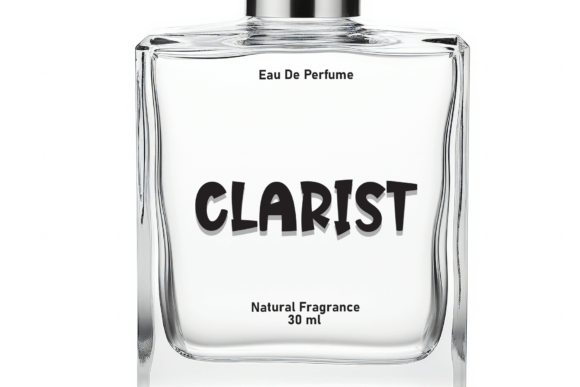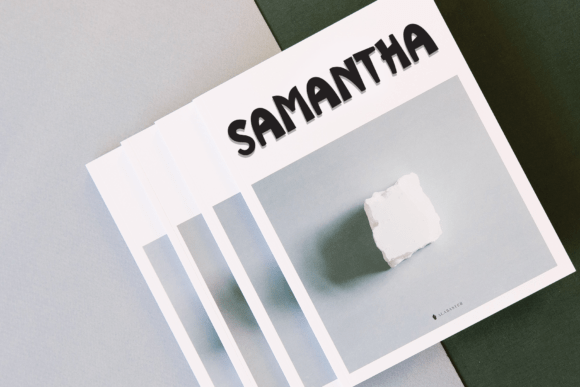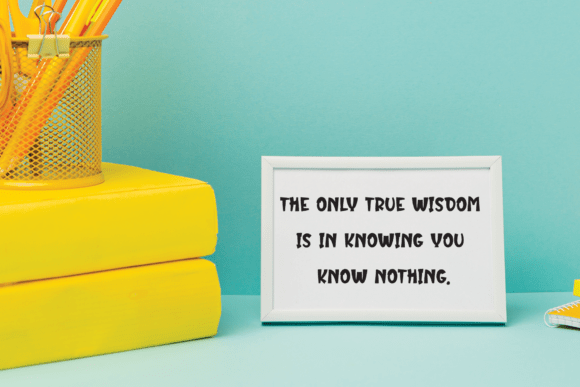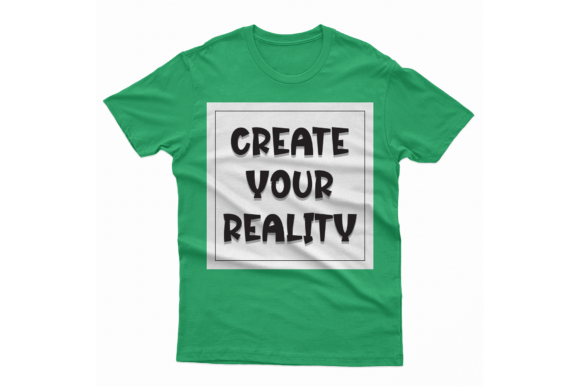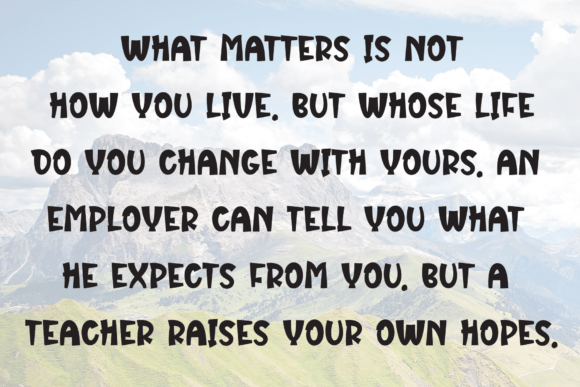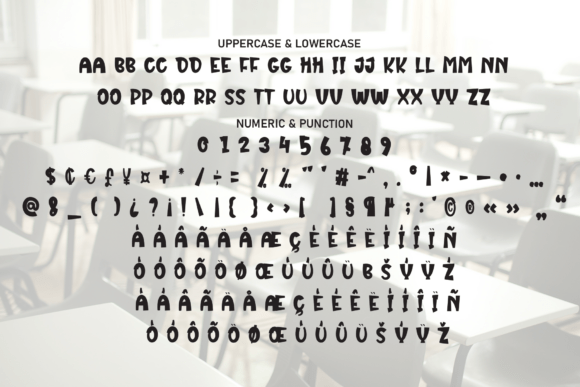
Introduction to School Nice Font
School Nice is a quirky and energetic display font full of personality and classroom charm.
Its bouncy, hand-drawn style brings a fun twist to educational materials, kids’ books, posters, and back-to-school projects It’s the perfect choice for designs that aim to be both educational and entertaining.
Key Features of School Nice Font
Why Choose School Nice Font?